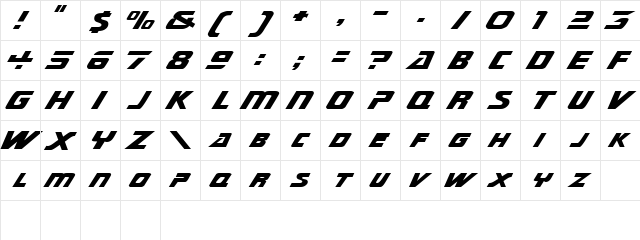
SubmarineExtended Regular
Design Context for SubmarineExtended Typeface
SubmarineExtended is a composed and adaptable typeface that performs quietly and consistently across a wide range of design contexts.